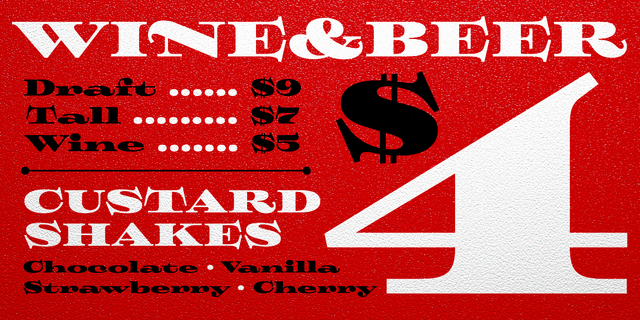
Hypocrite
About Hypocrite is a wide and black display serif face with a hint of decay and black humor. Handle with care. Shelf-life unlimited. Designed by Alexander Lubovenko and released by Paratype in 2017.
original, paunchy, fat, expensive, bizarre, fussy, Gypsy, huge, demonstrative, artistic, expressive, rich, experimental, ironic, stable, static, Vintage, sharp, esthetic, solid, distinctive, intricate, cutting, pretentious, extravagant, nonconformist, Bohemian, ambitious, notable, splashy, nostalgic, old school, alive, active, handicraft, old-fashioned, heavy, strange, craft brewed, ancient, historical, bright, close-fitting, flexible, mannered, dramatic, playful, theatrical, mutable, magic, magical, mystical, deceptive, shocking, witty, cocky